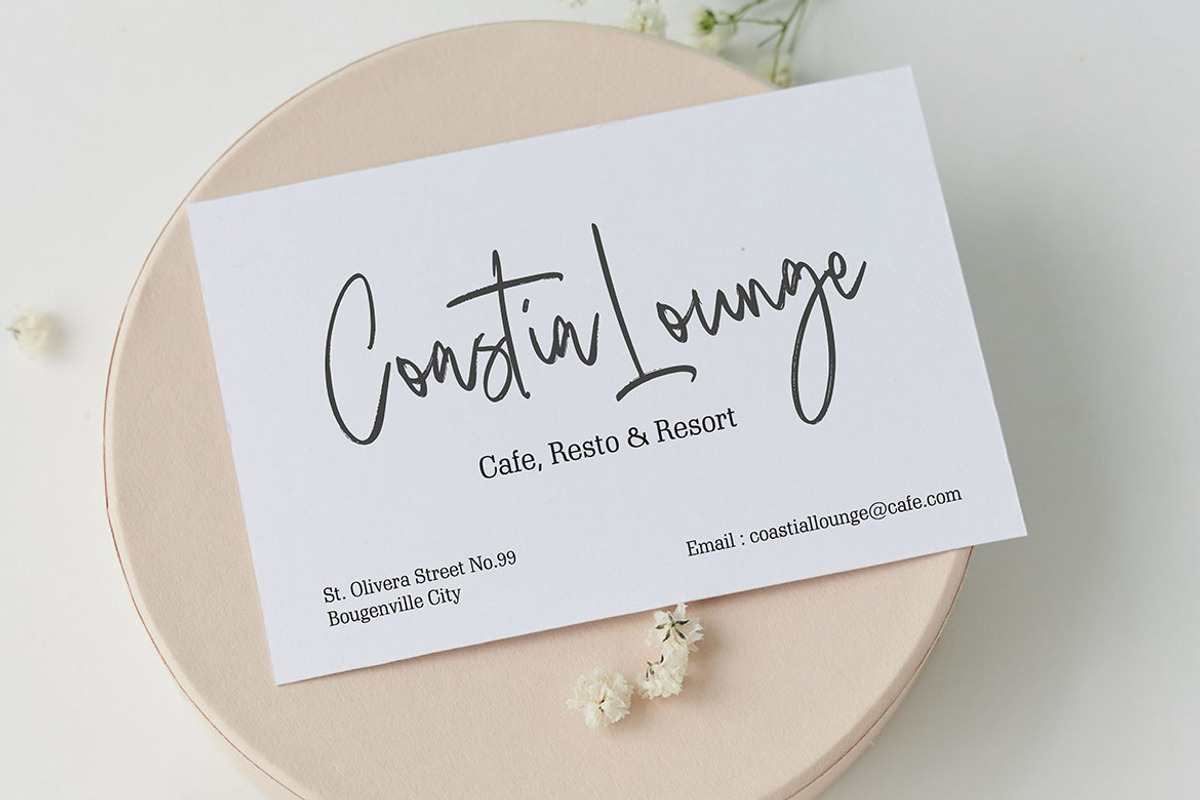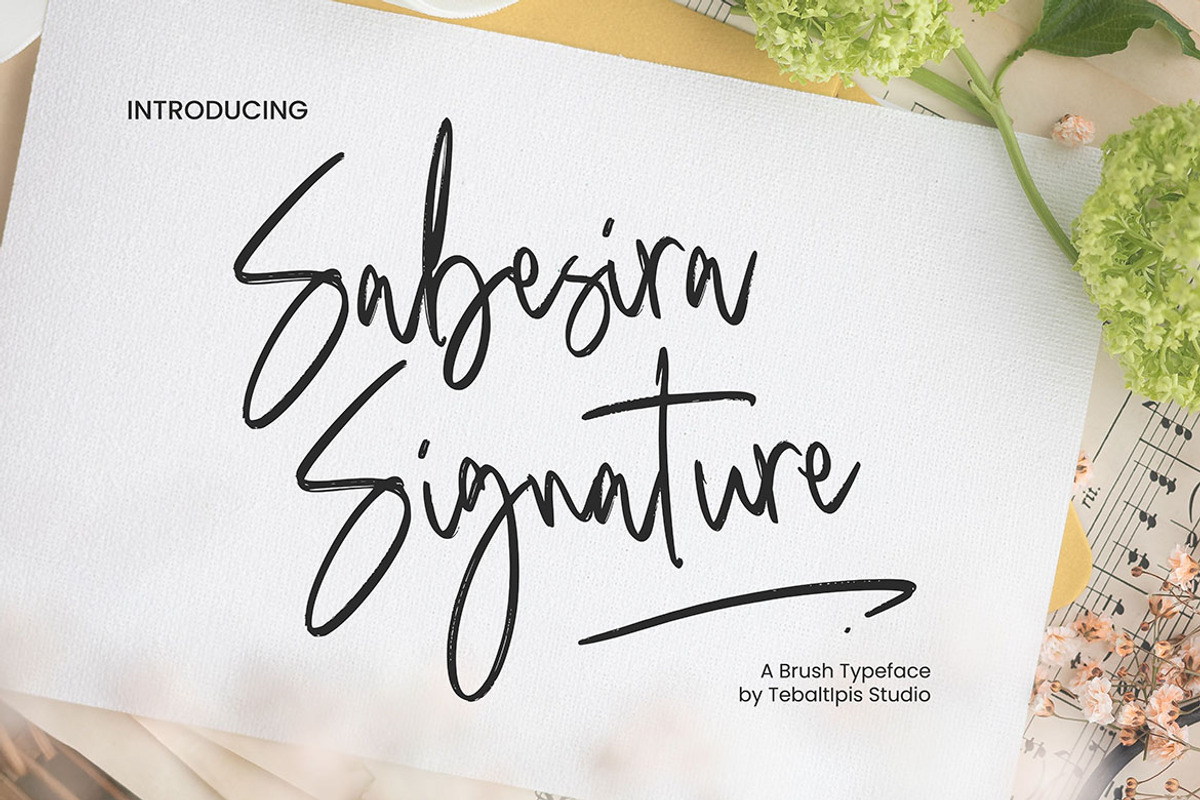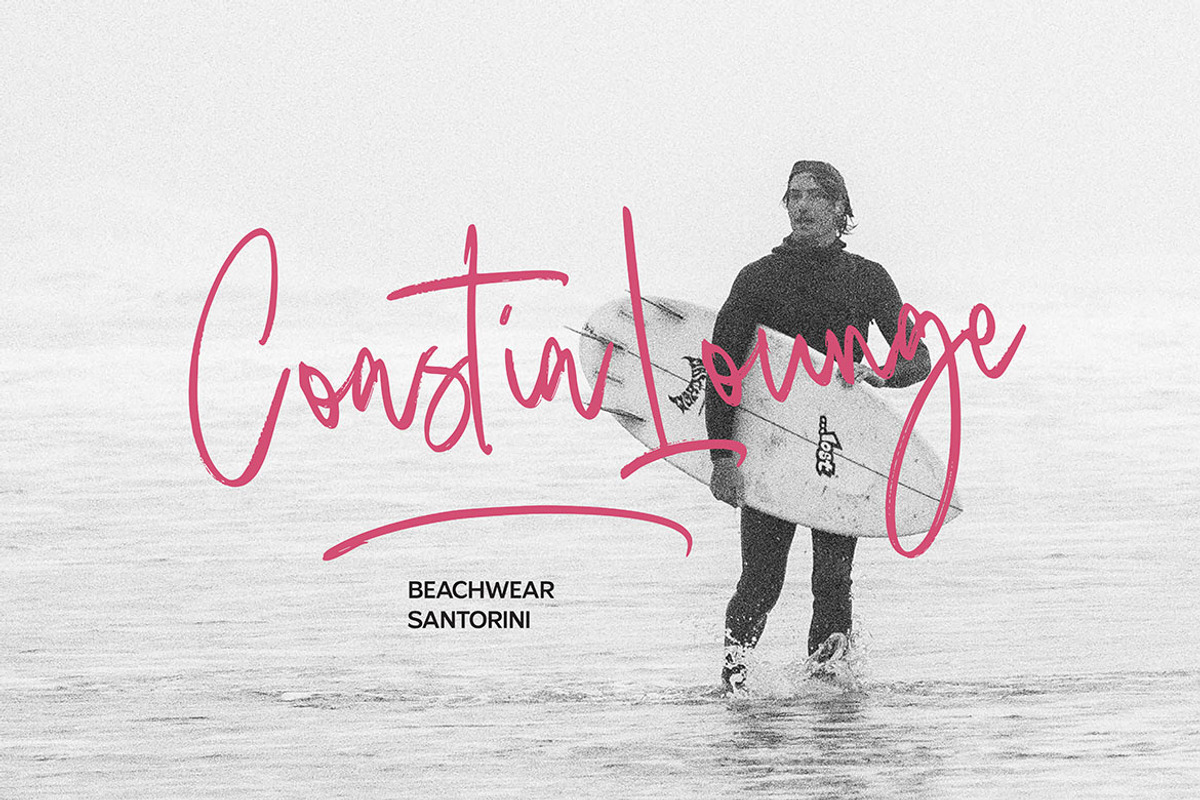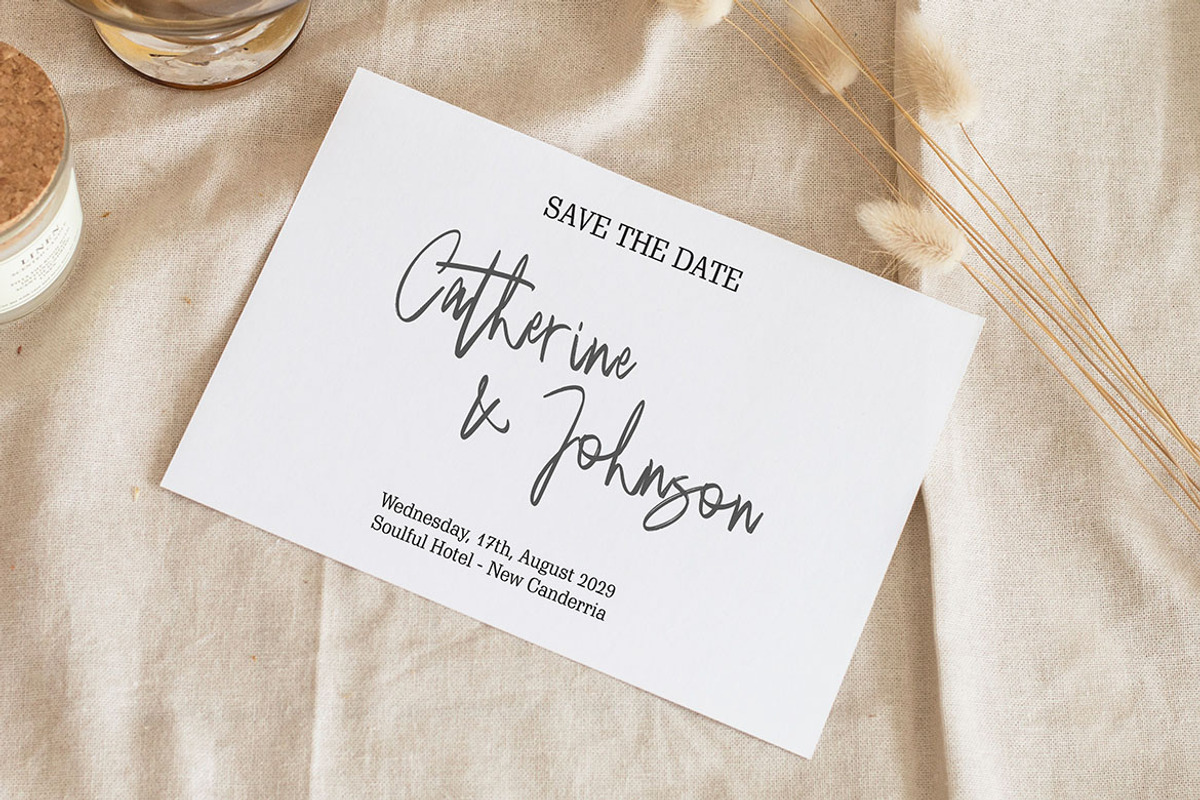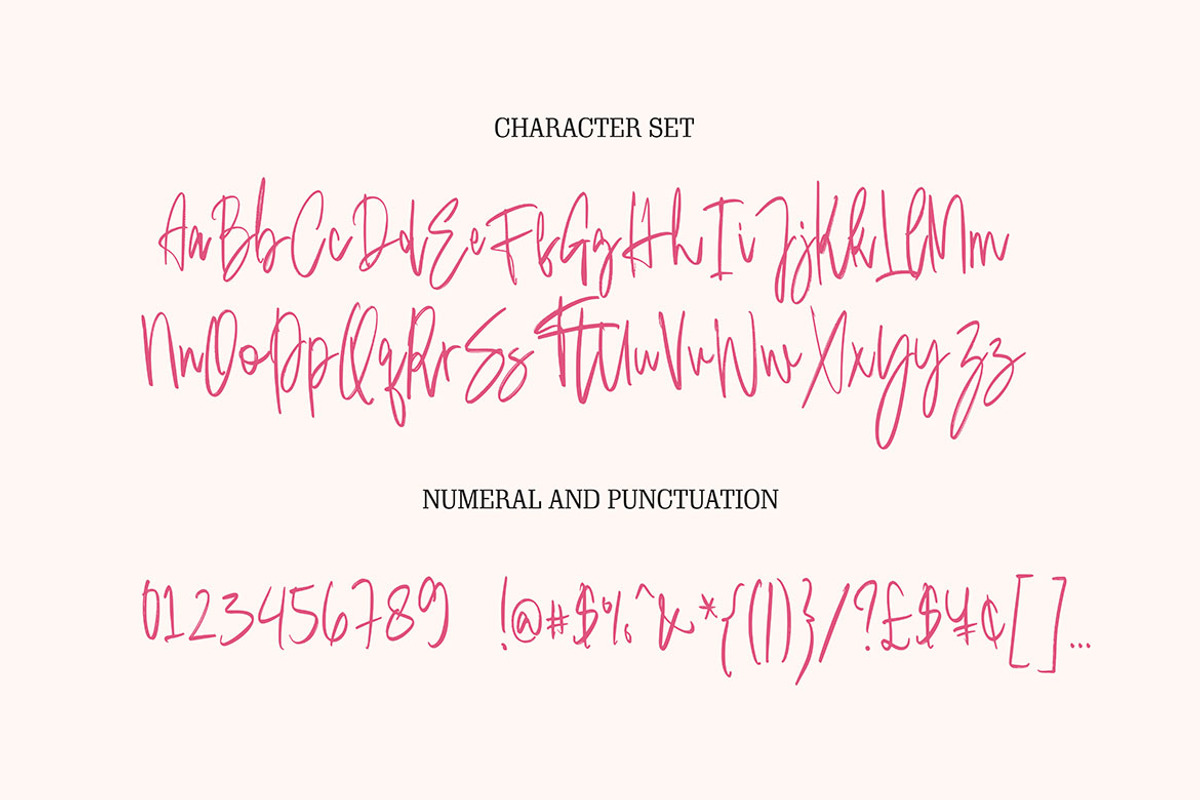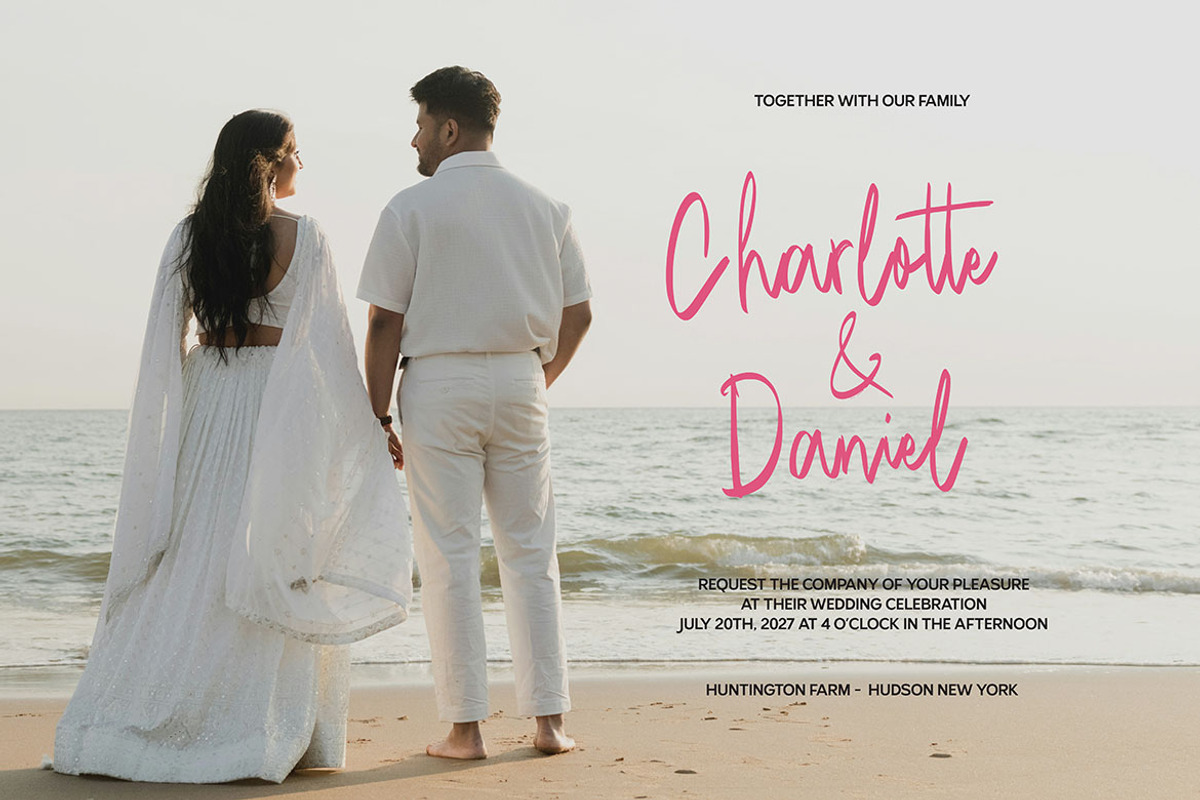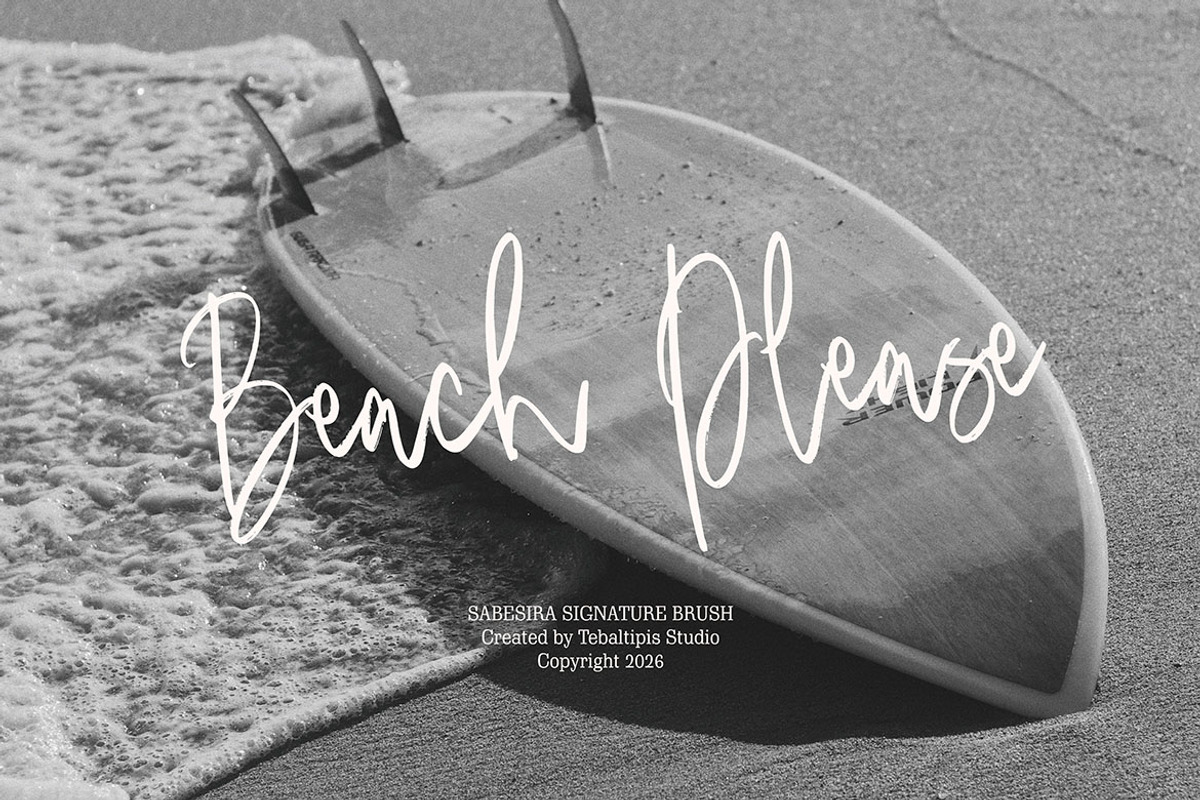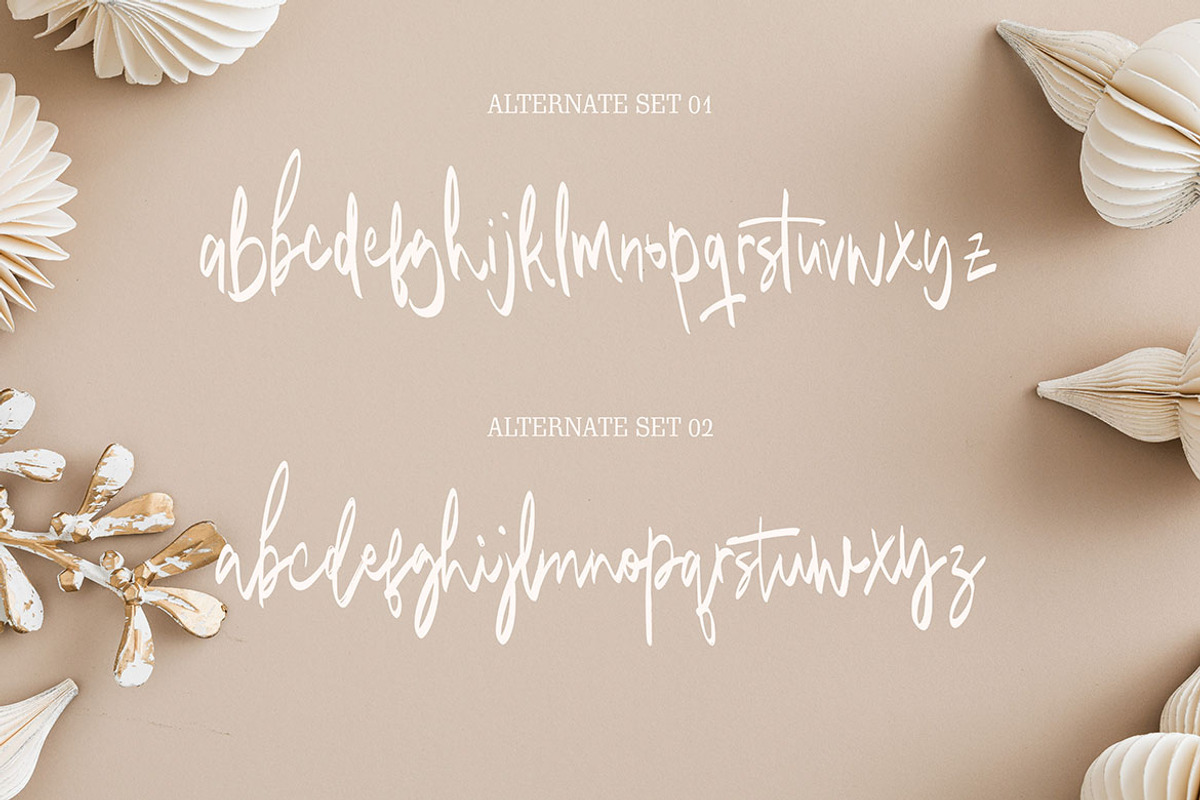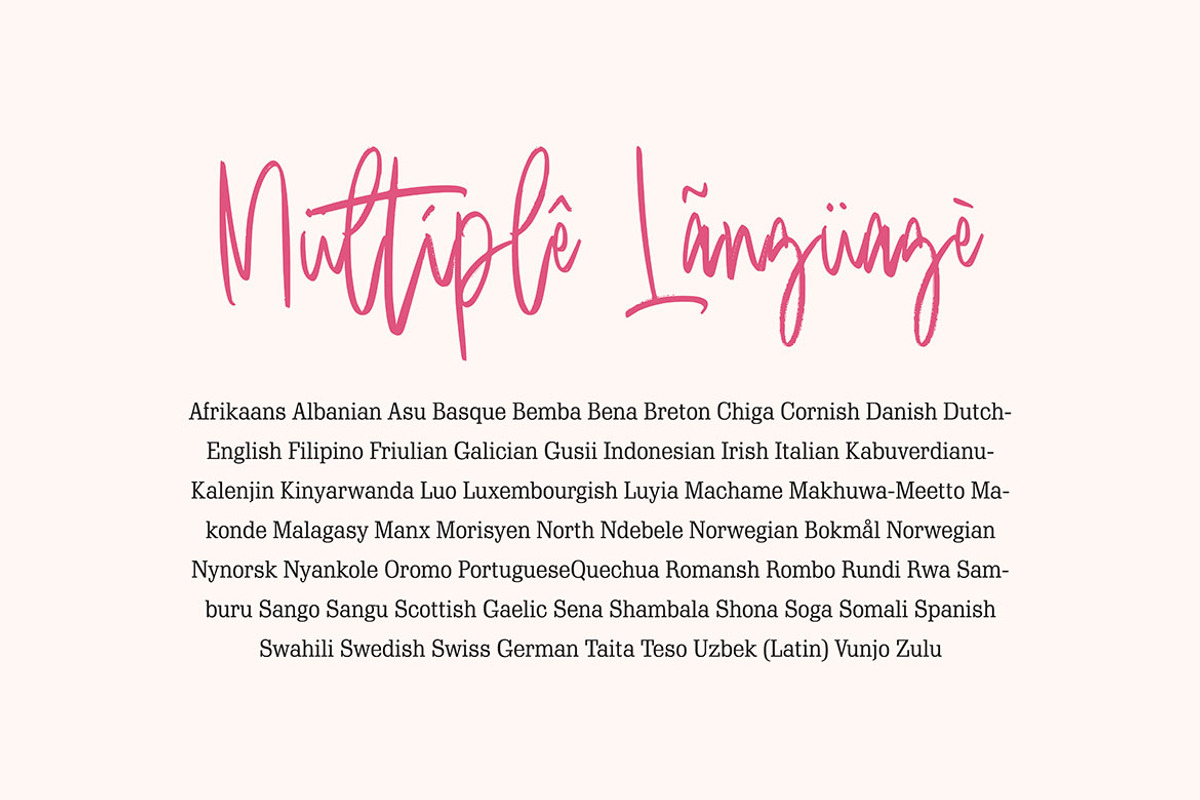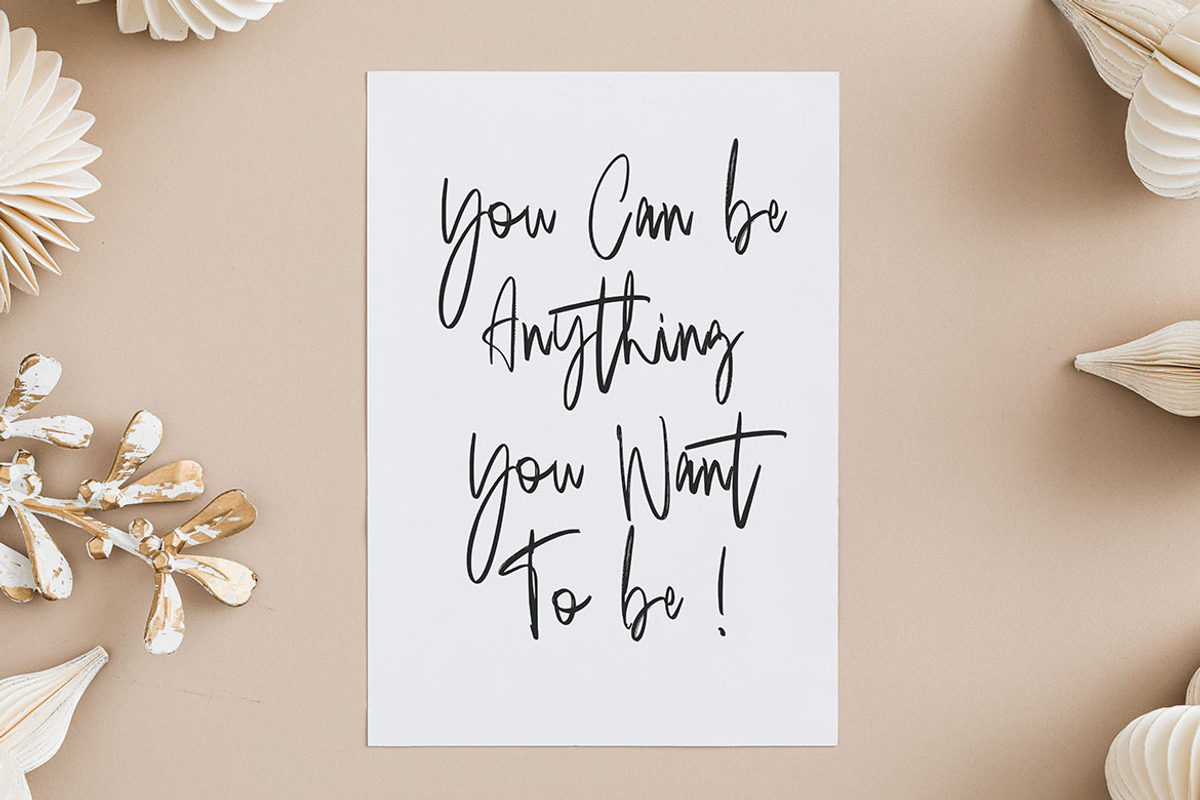
Sabesira - Signature Brush
\\\Sabesira Signature Brush\\\ with a handmade Signature style, decorative characters and a dancing baseline! So beautiful on invitation like greeting cards, branding materials, business cards, quotes, posters, and more!!
Sabesira Signature Brushcome with 170+ glyphs. The alternative characters were divided into several Open Type features such as Swash, Stylistic Sets, Stylistic Alternates, and Ligature. The Open Type features can be accessed by using Open Type savvy programs such as Adobe Illustrator, Adobe InDesign, Adobe Photoshop Corel Draw X version, And Microsoft Word. And this Font has given PUA unicode (specially coded fonts). so that all the alternate characters can easily be accessed in full by a craftsman or designer.
Sabesira Signature Brush Features :
Uppercase & Lowercase International Languange & Symbols Support Punctuation & Number PUA Unicode Range Standard Ligatures Discretionary Ligatures Stylistic Alternates Stylistic Set.